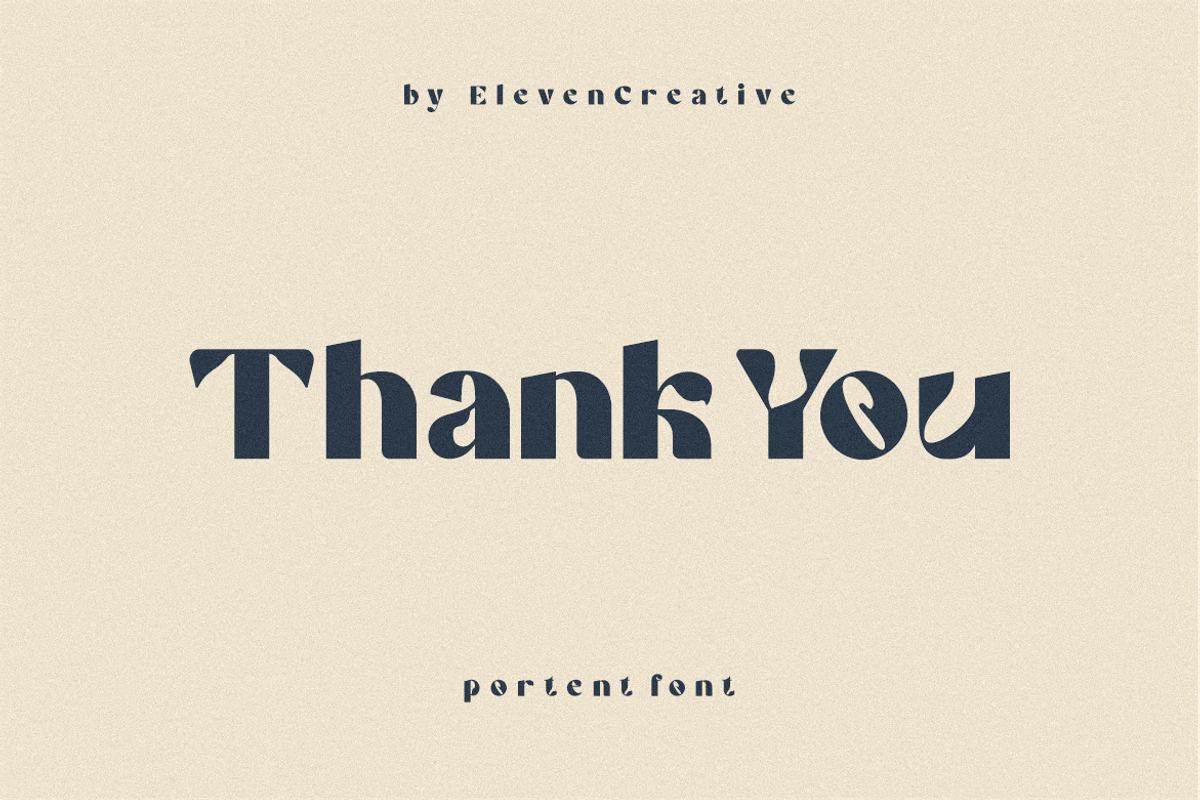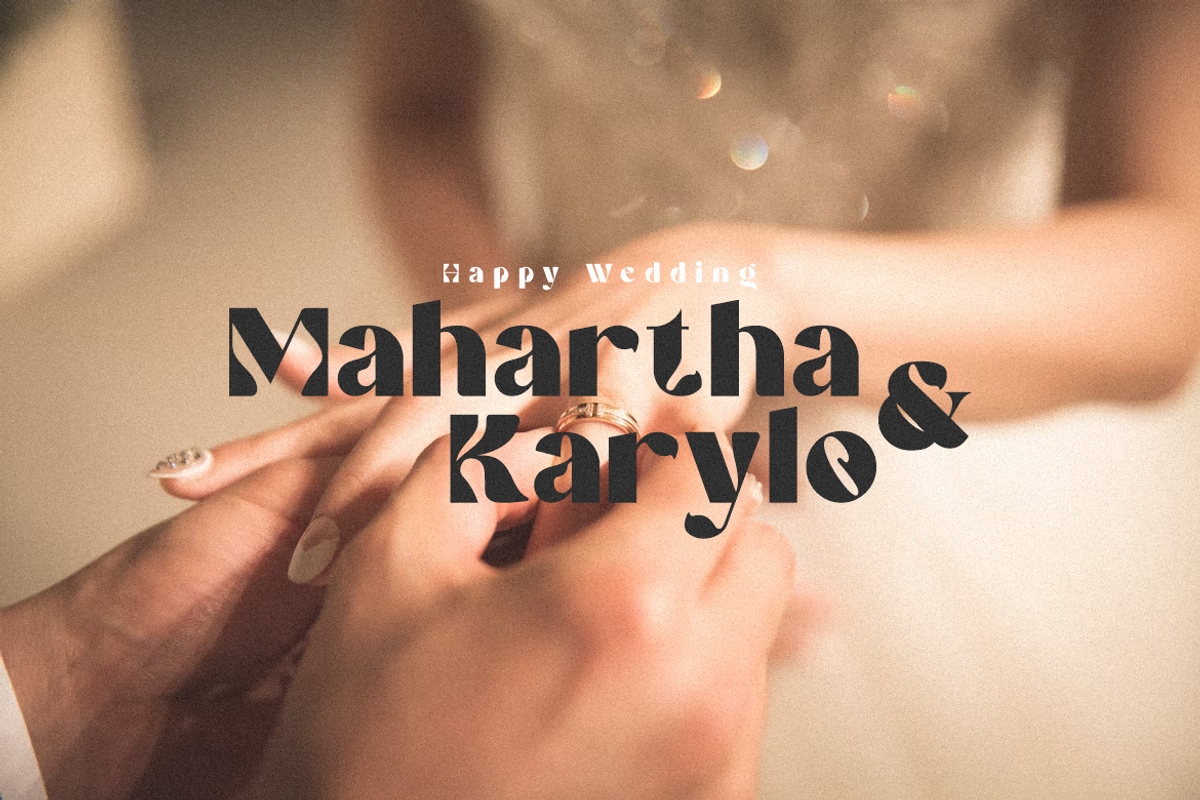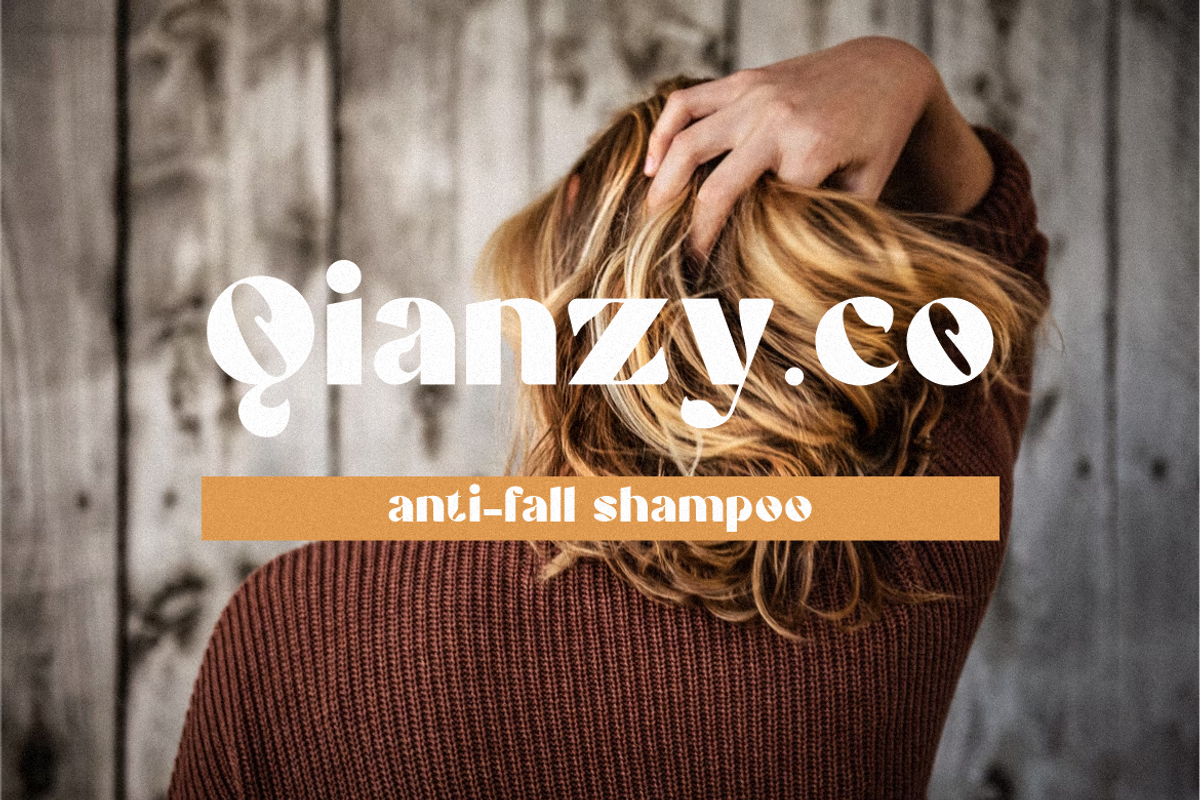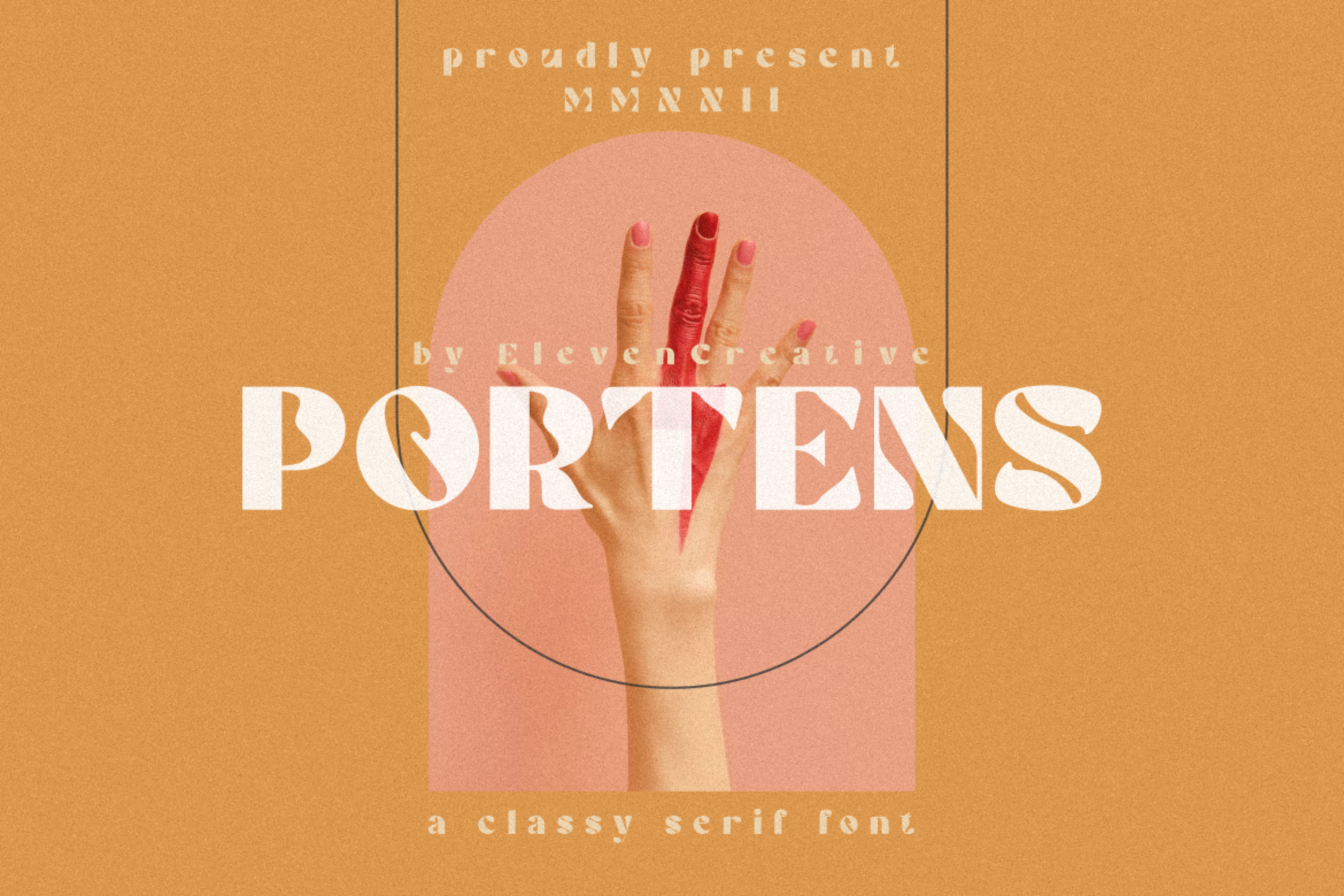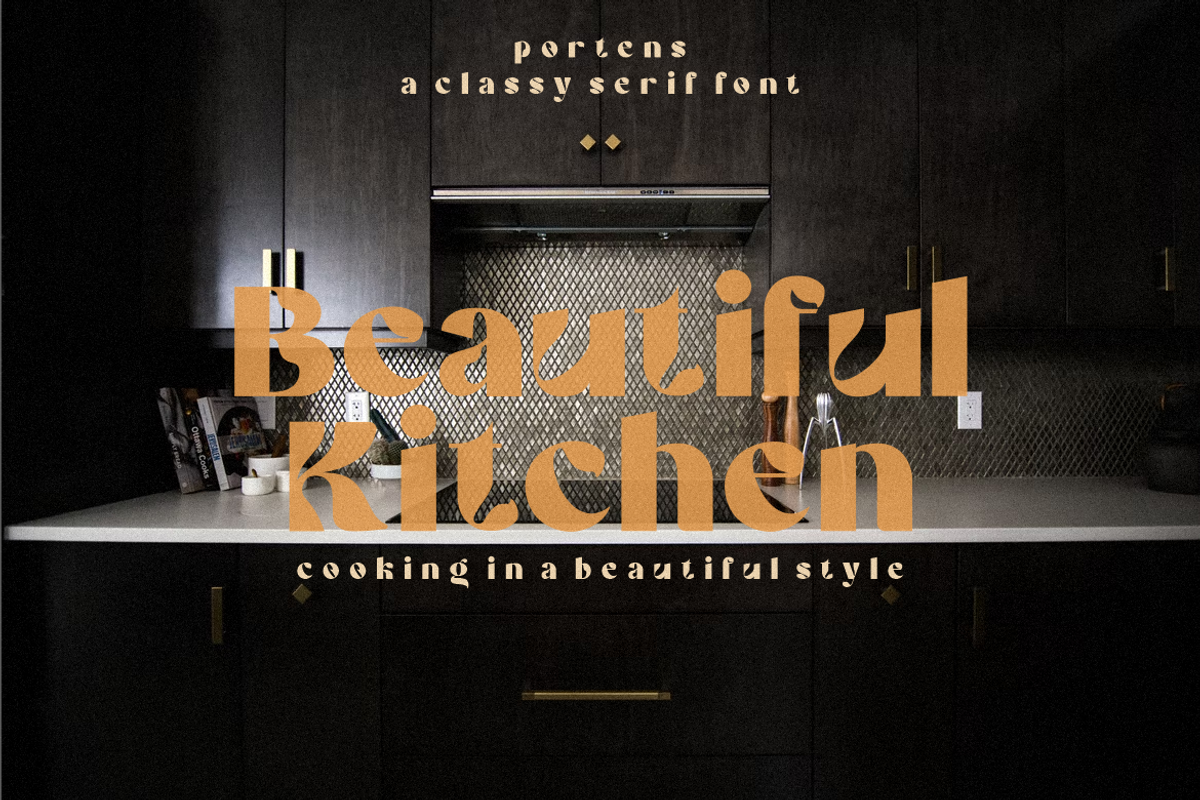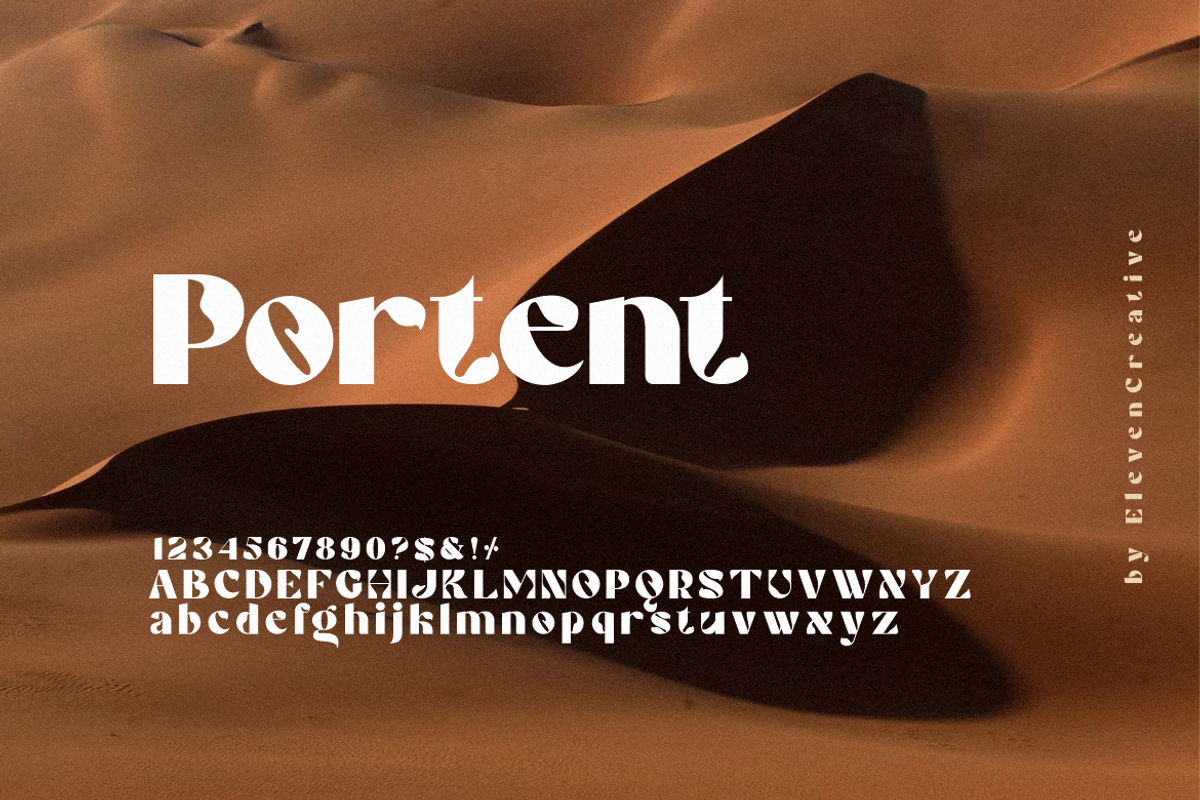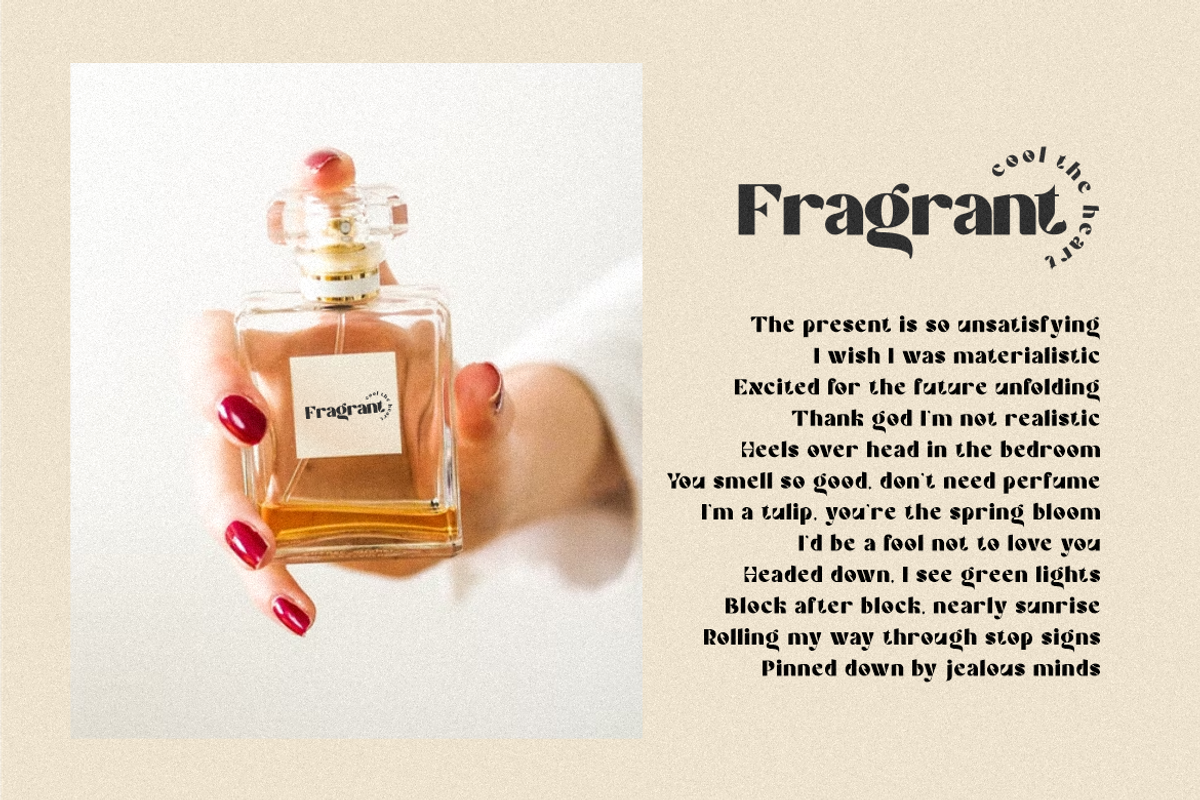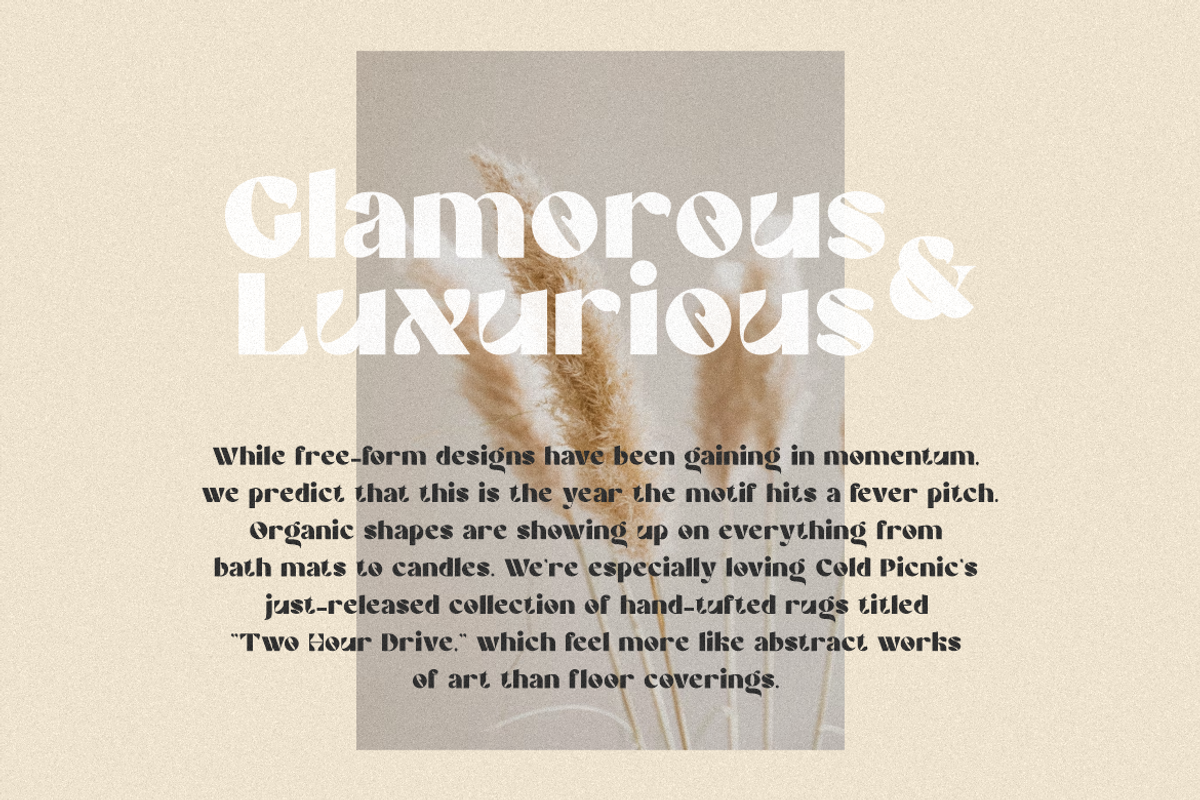
Portent Serif Font
This modern serif typeface features serifs. Perfect for gorgeous logos & titles, Portent will pair beautifully with many fonts and work well with whatever project you're working on.
Containing full set of punctuation and numerals Include Alternate, Swash & stylistic set Typeface. An broader version of the font for a Portent different feel. Webfonts and OTF and TTF files for all fonts are included.